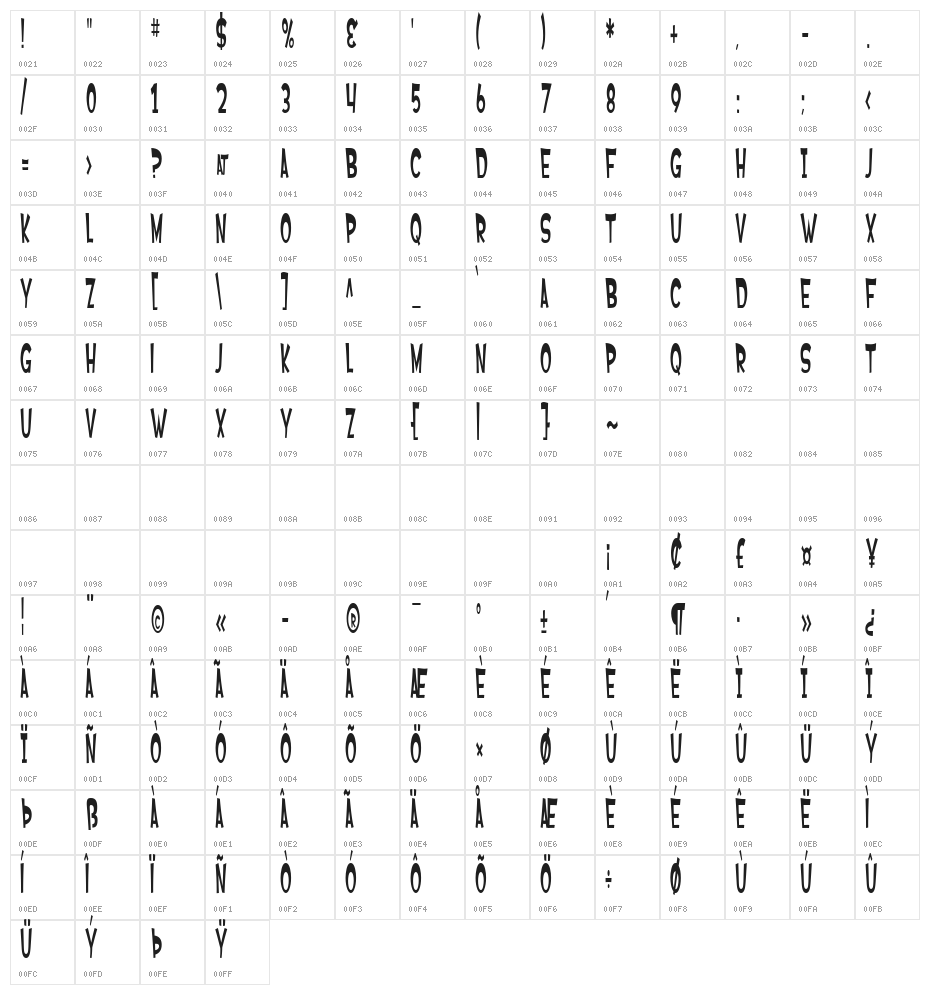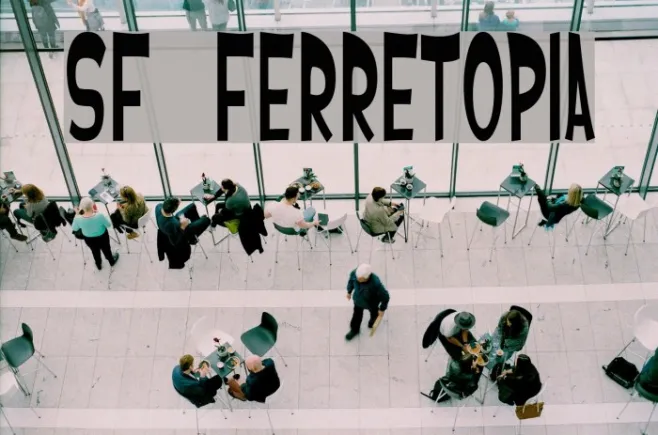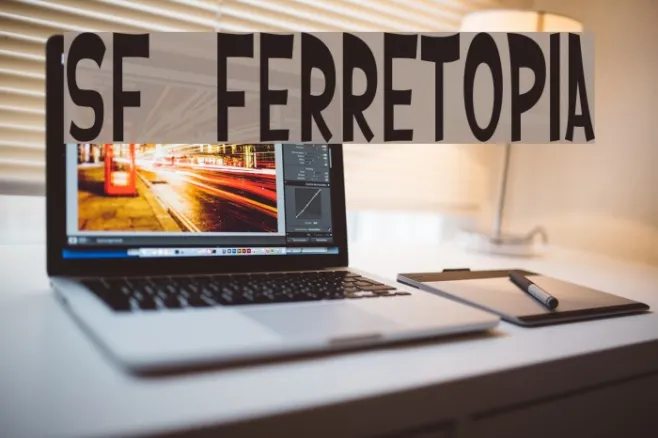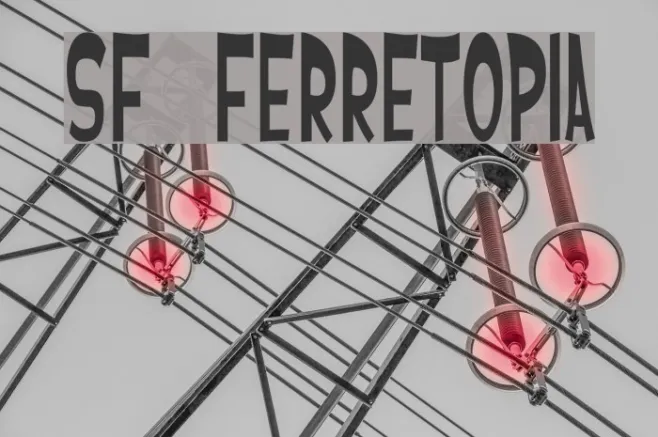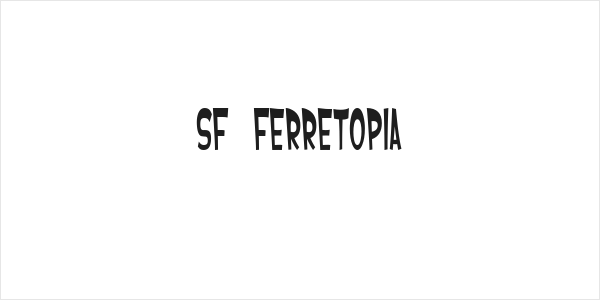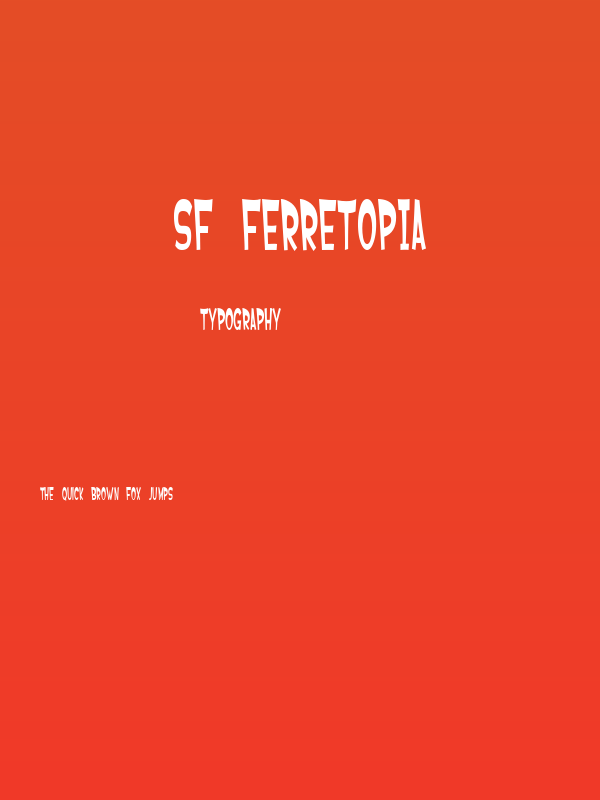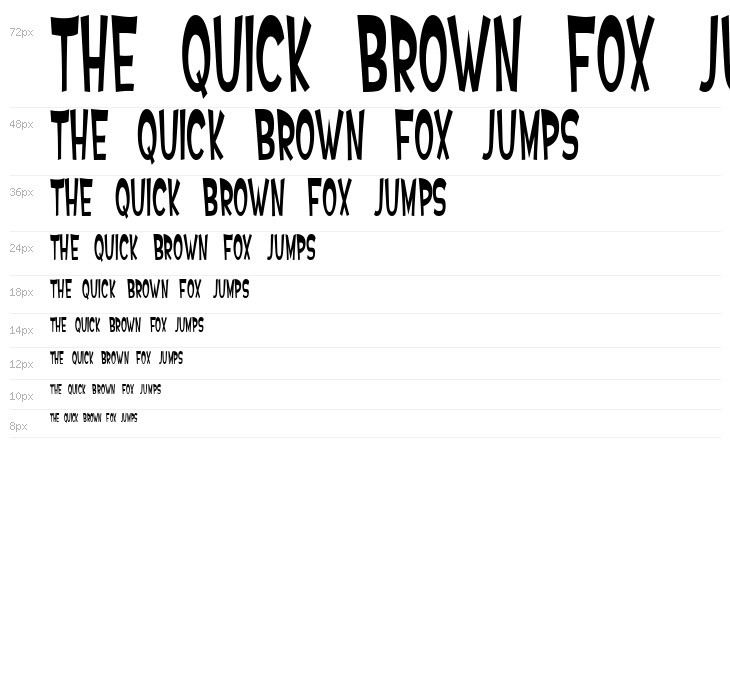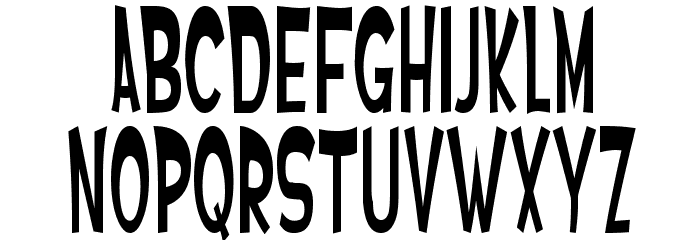
SF Ferretopia Font
SF Ferretopia Description
This font features a playful and bold design with exaggerated curves and a slightly irregular baseline, giving it a whimsical and dynamic appearance. The uppercase letters are tall and narrow, while the lowercase letters maintain a consistent height, creating a cohesive look. The numbers are bold and easy to read, with a slight tilt that adds to the overall quirky style. Special characters are included, maintaining the same playful aesthetic. This font is perfect for projects that require a fun and eye-catching design.
Overall StylePlayful
Proposed ProjectsIdeal for children's books, playful branding, party invitations, and creative posters.